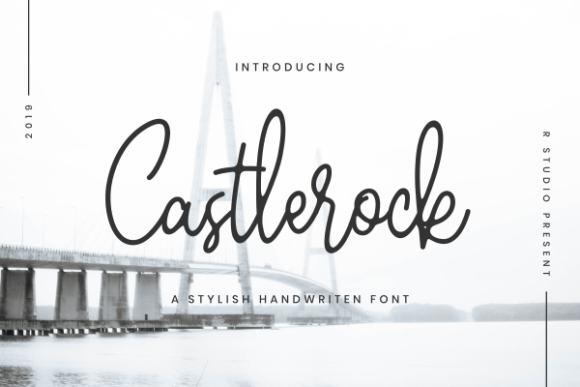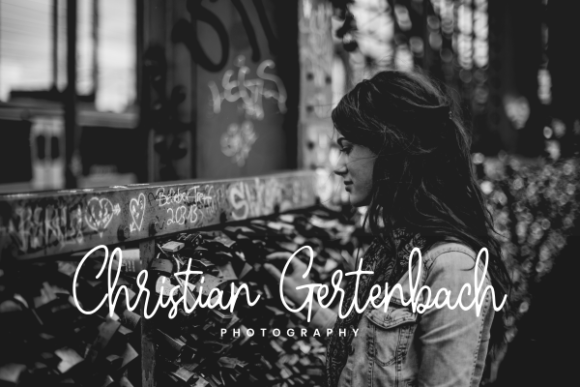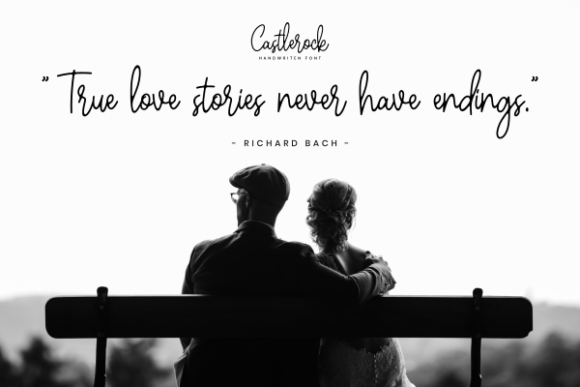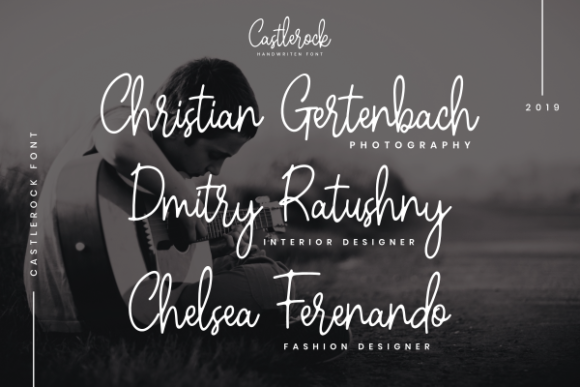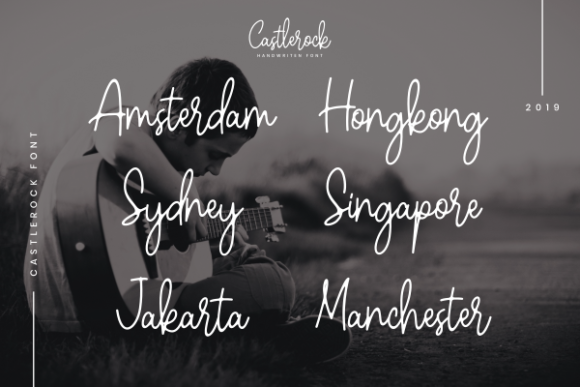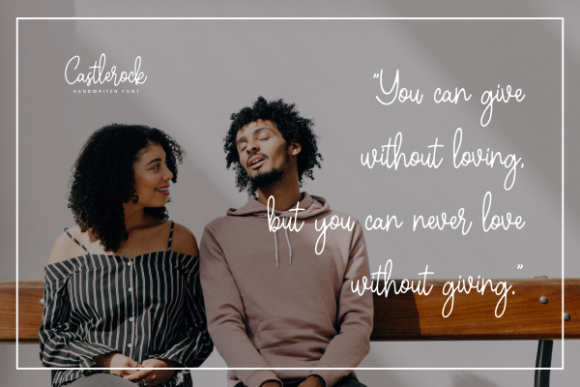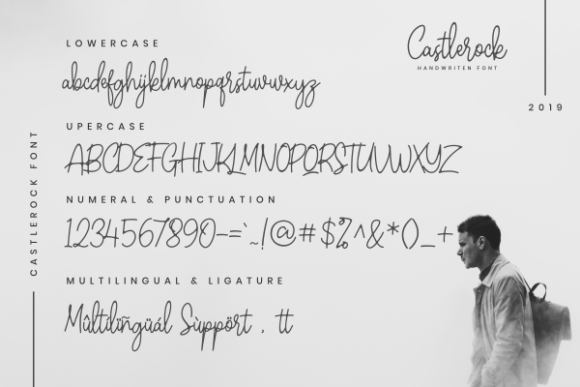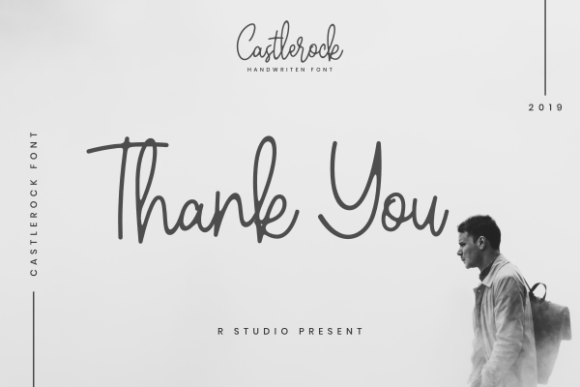
HomeScript FontsCastlerock Font Script Fonts Castlerock Font FacebookXPinterestWhatsApp Castlerock Font Poster 2 Castlerock Font Poster 3 Castlerock Font Poster 4 Castlerock Font Poster 5 Castlerock Font Poster 6 Castlerock Font Poster 7 Castlerock Font Poster 8 About Castlerock Font Castlerock is a stylish handwritten font that works best in minimal and sleek designs. DOWNLOAD ON CREATIVE FABRICAThis font is sold and delivered by Creative Fabrica. Font Canyon may earn a commission if you buy through this link. People also explored Bloodstone Font Lynoselt Losthouse Font Flower and Leaves Font Glamela Font Coolkids Font Amel Font Ultimate Sports Font Bundle Font Play Big Hair Font 313 0 TagsCastlerock Font Previous articleDessert First FontNext articleElizany Font LEAVE A REPLY Cancel reply Comment: Please enter your comment! Name:* Please enter your name here Email:* You have entered an incorrect email address! Please enter your email address here Website: Save my name, email, and website in this browser for the next time I comment. Personal Use Free Electroharmonix Personal Use Free Read more about this font Pumpkin Type Halloween Font Personal Use Free Read more about this font Mullia Personal Use Free Read more about this font Bellarin Personal Use Free Read more about this font BLOG Best Fonts for T-Shirt Design – Top 2025 Picks In 2025, t-shirt design has become more than just fashion—it's a form of self-expression. Whether you're... How to Install and Use Fonts on Windows, macOS, and Web Projects Fonts That Capture the Spirit of New York City Where to Buy American Fonts Online in 2024